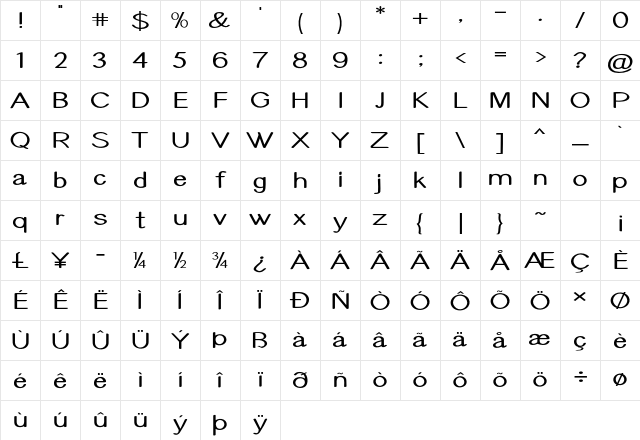
Talima Expanded Bold
Style: Expanded Bold
Talima Family
Talima Expanded Bold
Design Context for Talima
Talima is a composed and adaptable typeface that performs quietly and consistently across a wide range of design contexts. Its bold stroke weight gives it real presence on the page.